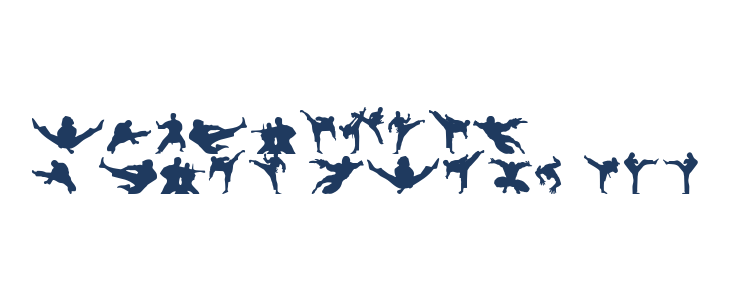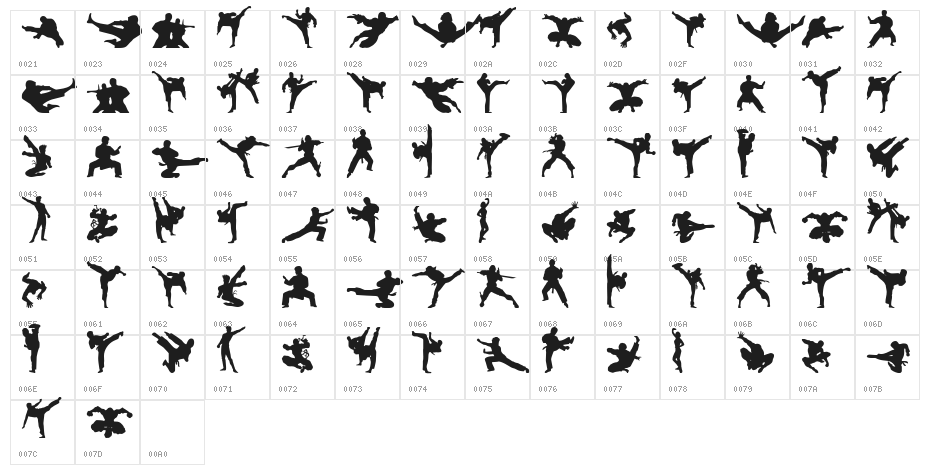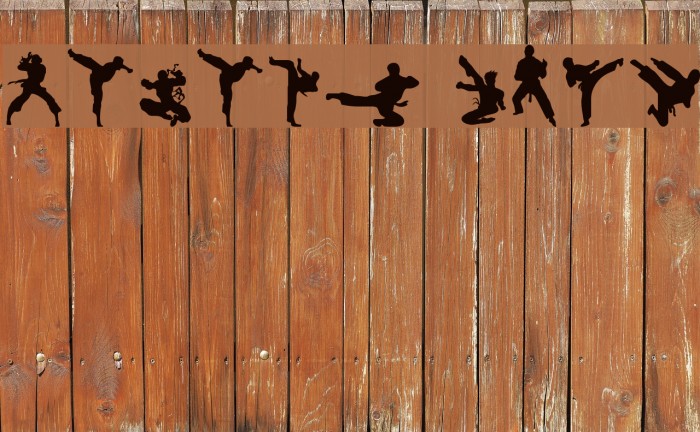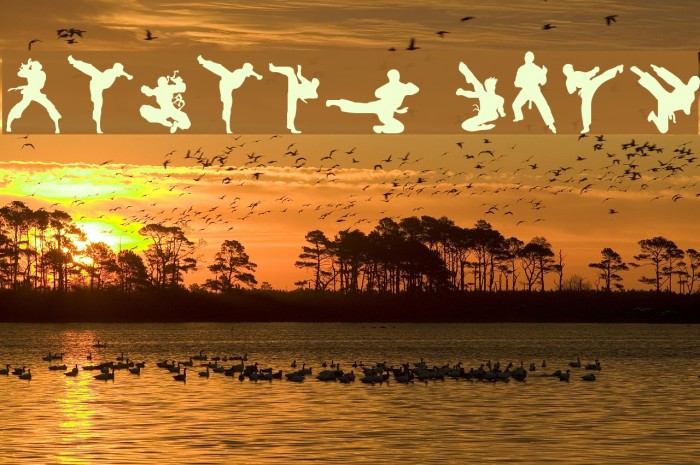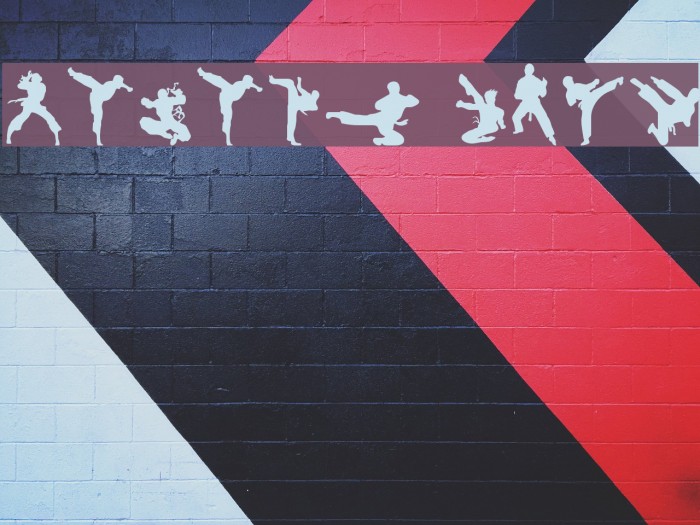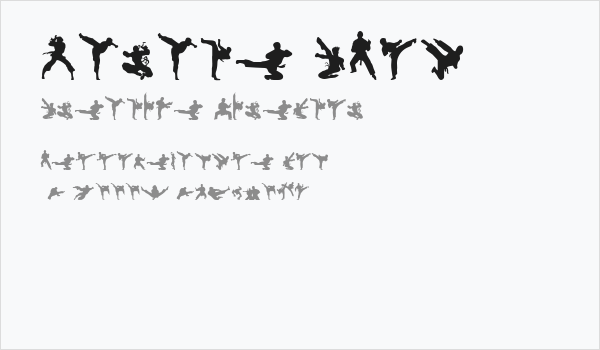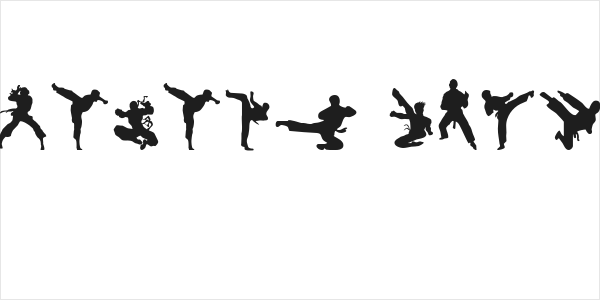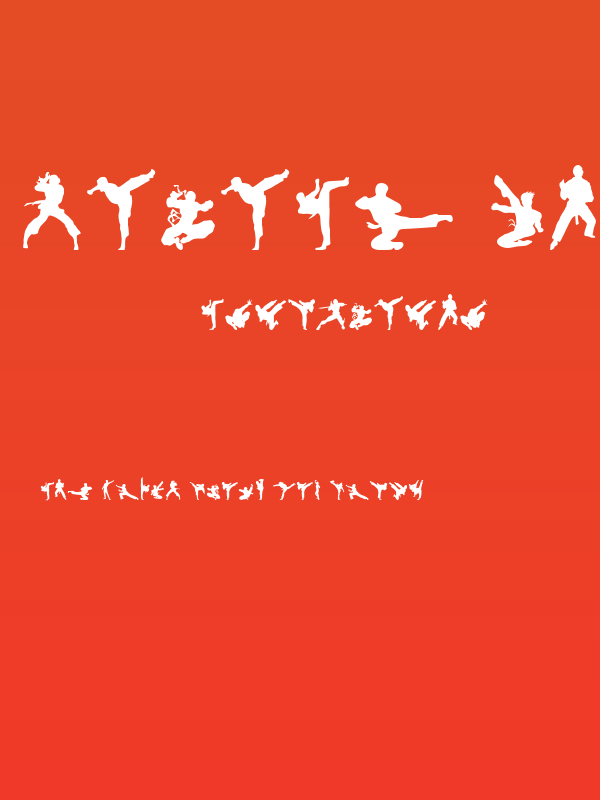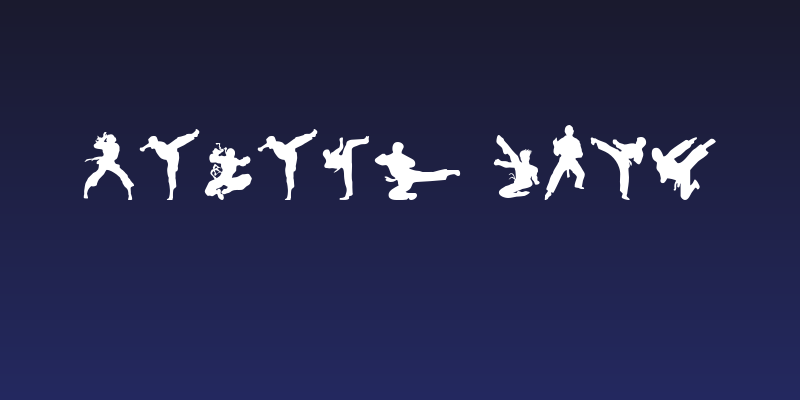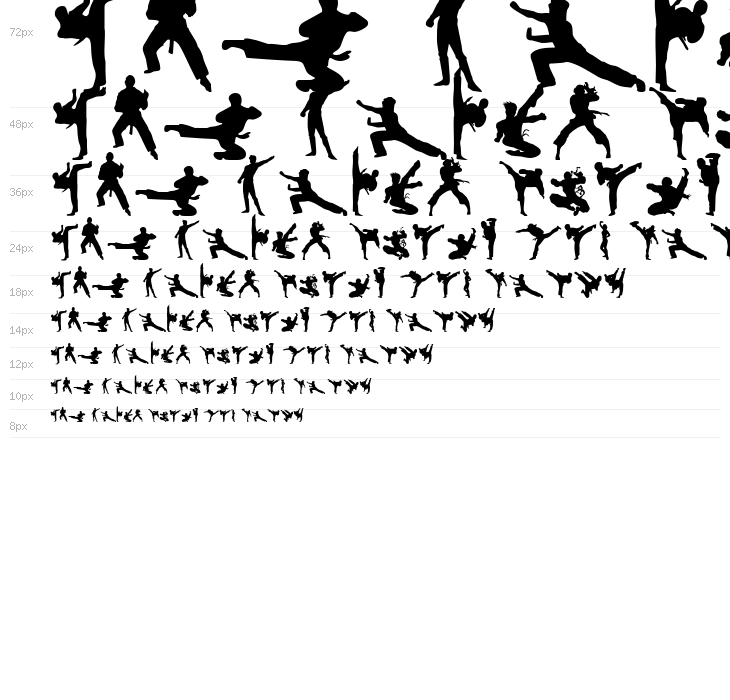
Karate Chop Font
Karate Chop Description
A decorative display font composed of dynamic martial arts silhouettes, each character formed by a unique figure in a karate or kickboxing pose, creating a bold and energetic visual impact.
| Overall Style | Decorative, Energetic, Thematic |
| Use Case | Headlines, Logos, Posters, Themed event materials |
| Proposed Projects | Sports event posters, martial arts branding, action-themed graphics, youth programs, dynamic logo designs. |